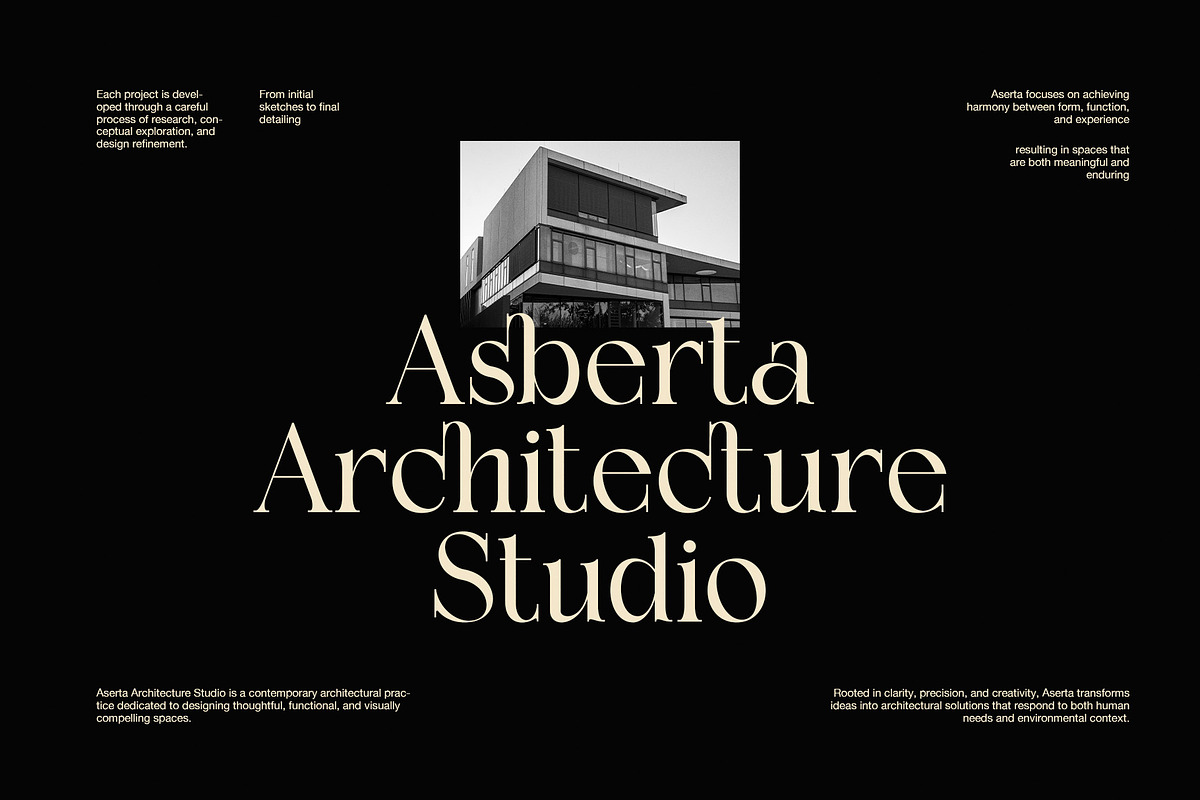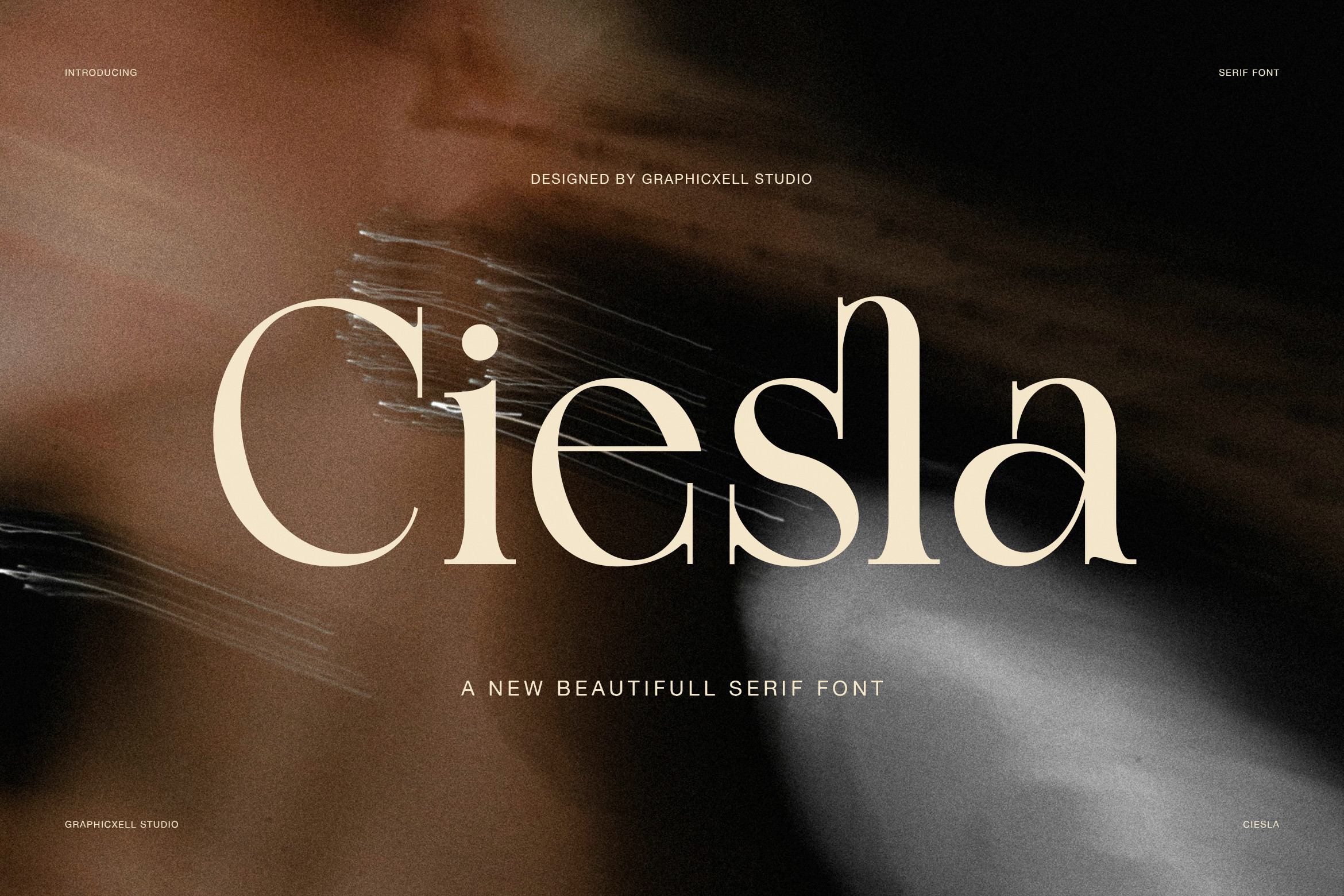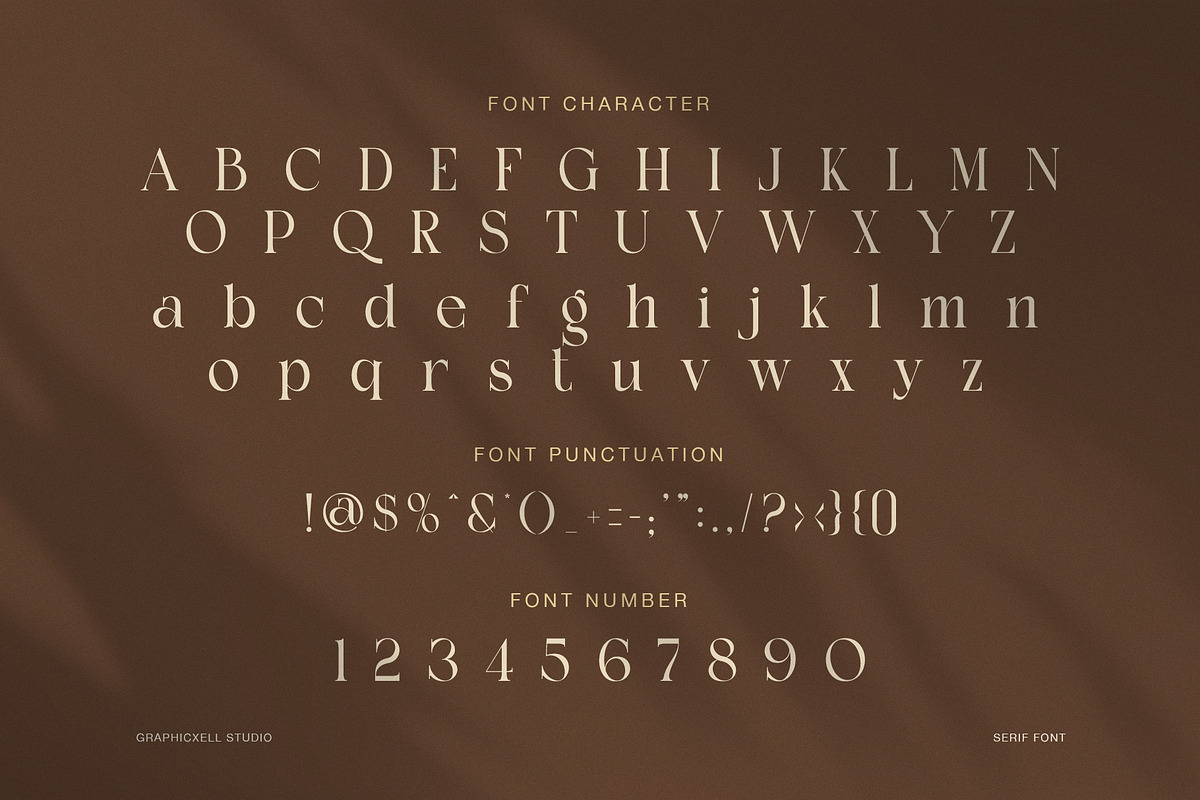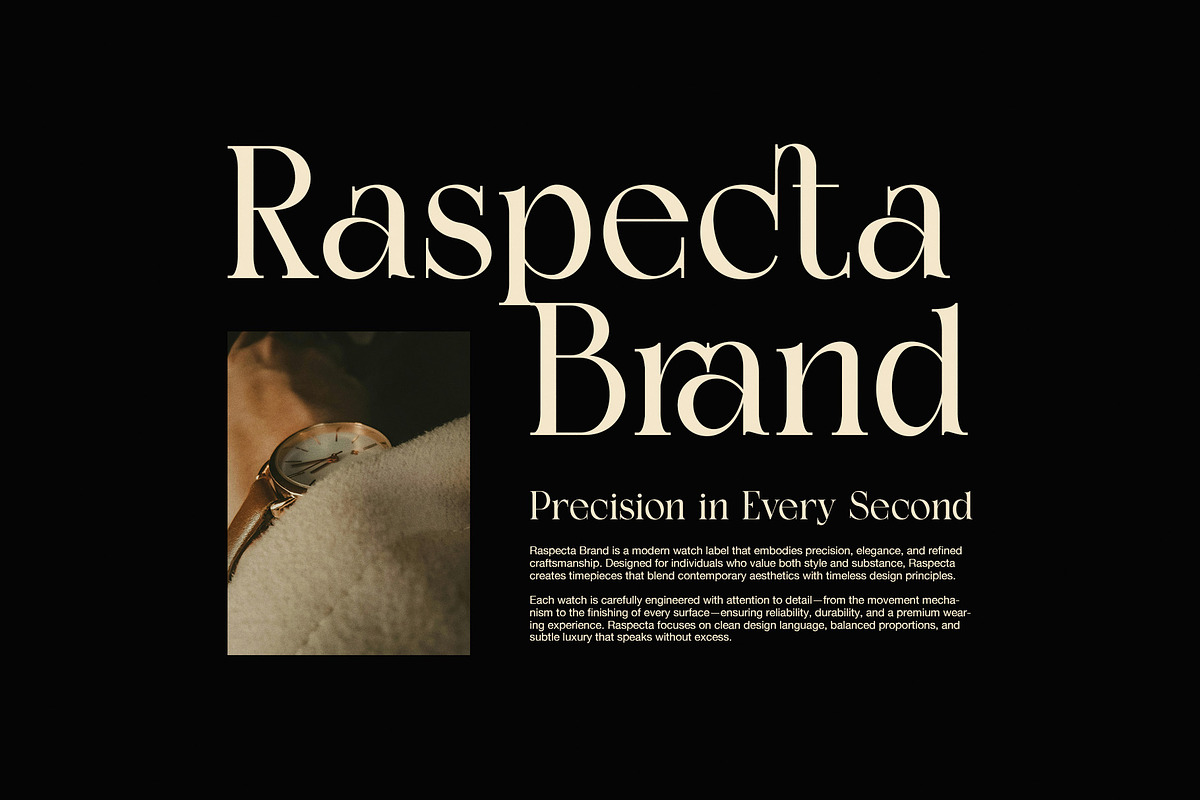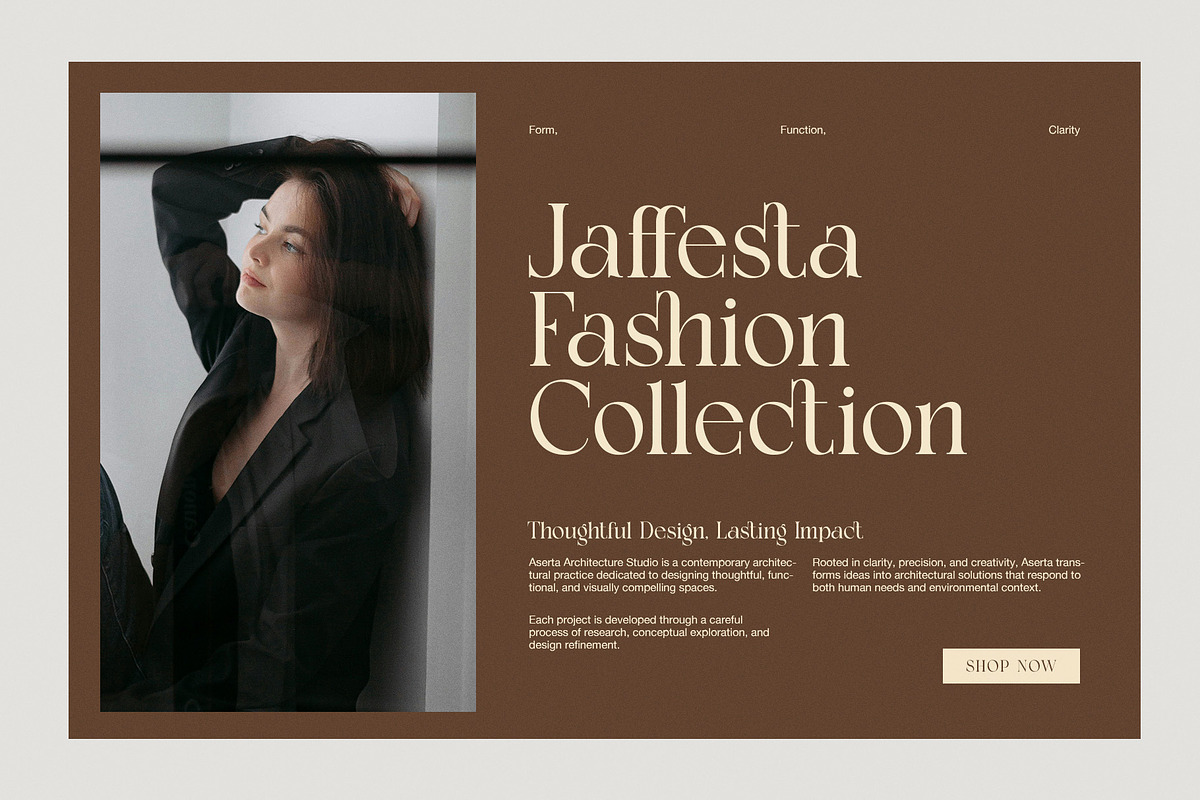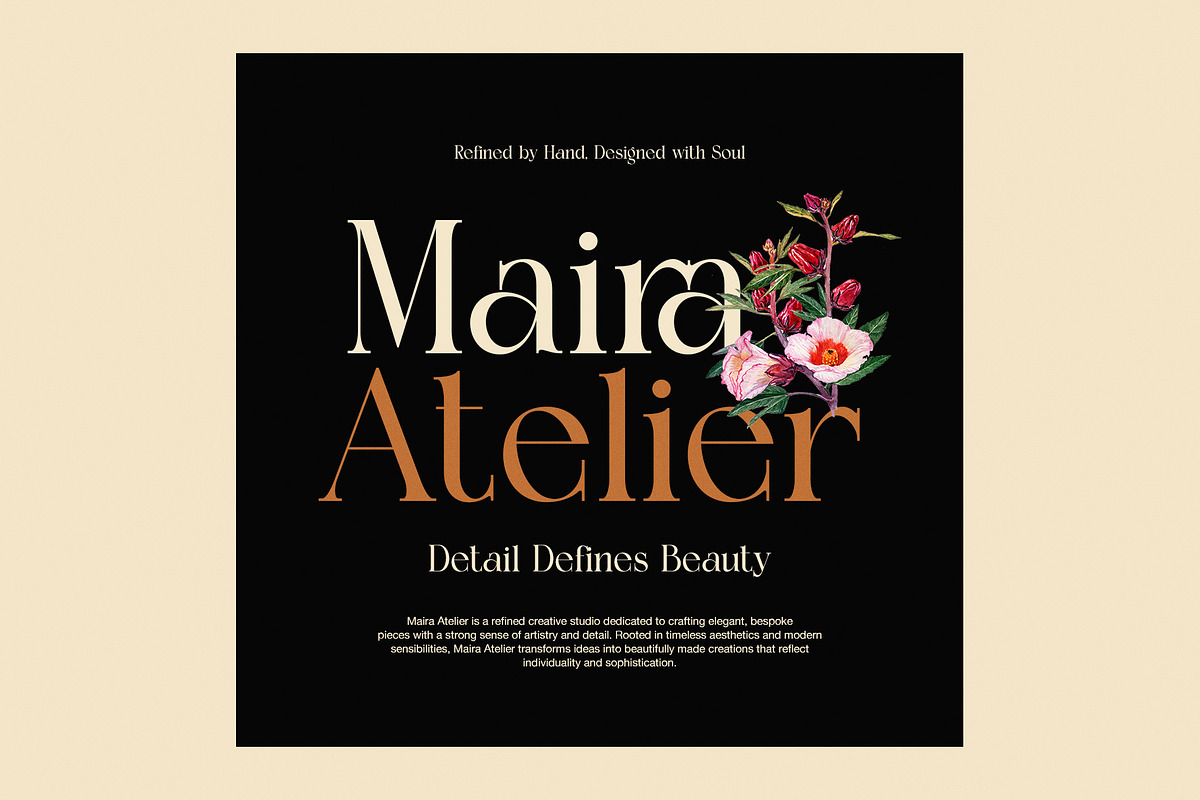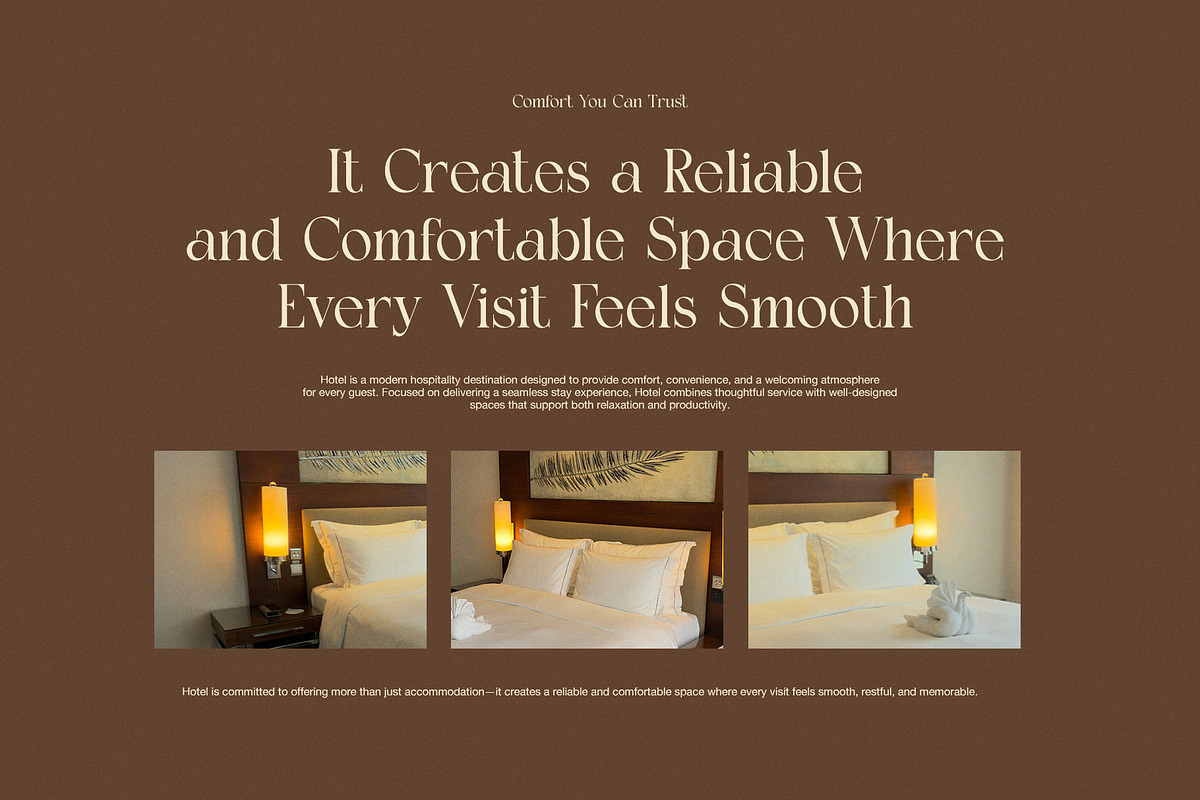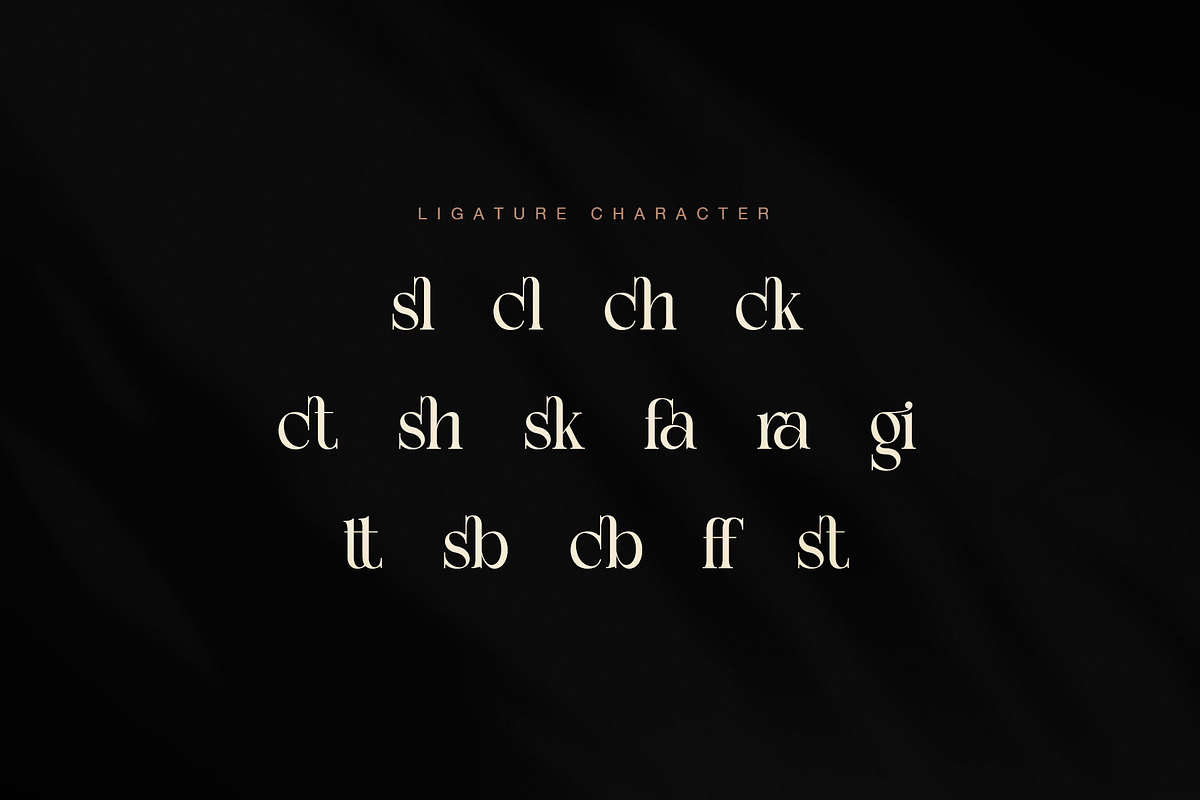
Ciesla Elegant Serif Font
A Refined Serif for Elegant Branding
Ciesla Elegant Serif Font is a graceful serif typeface with a soft luxury feel, clean contrast, and stylish curves. Because of its smooth letter shape, this font brings a polished look to logos, titles, packaging, and editorial layouts.
The font has tall uppercase letters, balanced lowercase forms, and fine serif details. As a result, every word feels calm, refined, and premium.
Beautiful Shape and Stylish Details
Moreover, Ciesla has a modern serif style with classic charm. Its thin strokes, rounded bowls, and sharp endings create a clean yet artistic look. The lowercase letters also have a soft rhythm, so the font feels warm and easy to read.
In addition, the ligature characters add a more custom look to words. For example, combinations such as sl, cl, ch, ck, sh, sk, fa, ra, gi, tt, sb, cb, ff, and st help make brand names look more unique.
Best Uses for Ciesla Elegant Serif Font
Therefore, Ciesla is a great choice for many premium design projects, such as:
- Luxury logo design
- Fashion brand identity
- Beauty product packaging
- Boutique labels and tags
- Wedding invitations
- Hotel and spa branding
- Editorial headlines
- Magazine covers
- Social media templates
- Watch, jewelry, and lifestyle branding
Why Designers Will Love Ciesla
Although Ciesla looks elegant, it still feels simple and clean. Because of this, designers can use it for both minimal and detailed layouts. Also, the font works well on dark backgrounds, soft beige palettes, and high-end photo-based designs.
Its ligatures help create a strong visual mark without extra decoration. Therefore, designers can build a logo or headline that feels unique, polished, and ready for premium brands.
Perfect for Premium Visual Projects
Furthermore, Ciesla Elegant Serif Font is ideal for brands that want beauty, trust, and quiet confidence. It gives each design a refined voice, while the stylish serif details make the final result feel timeless.
Overall, this font is perfect for designers who need a luxury serif font with graceful curves, elegant ligatures, and a modern editorial look.